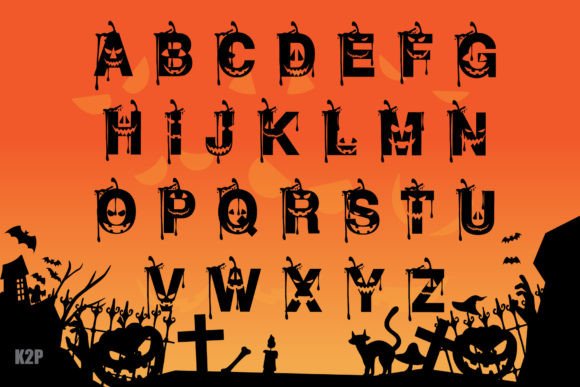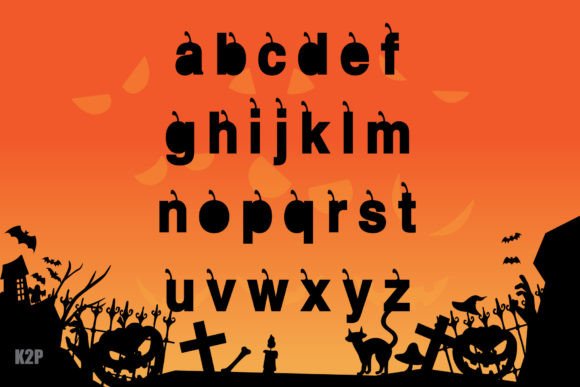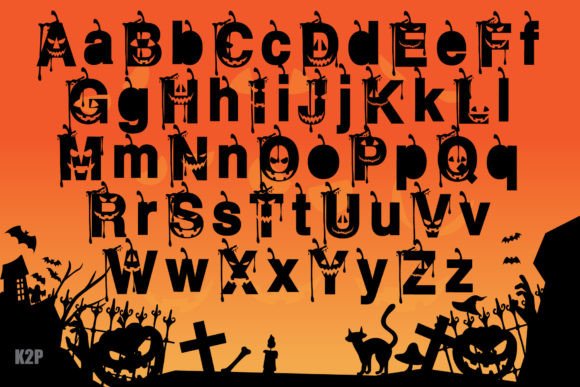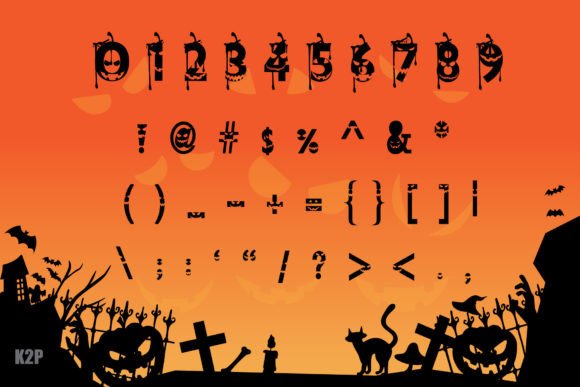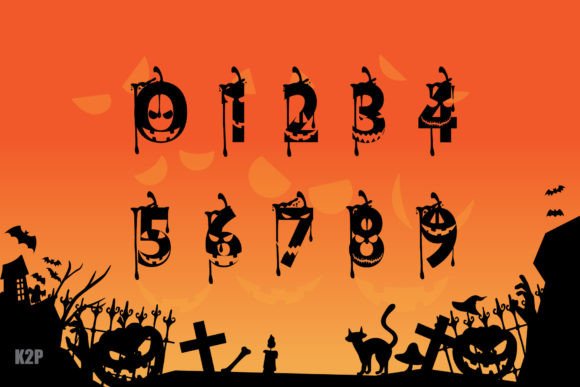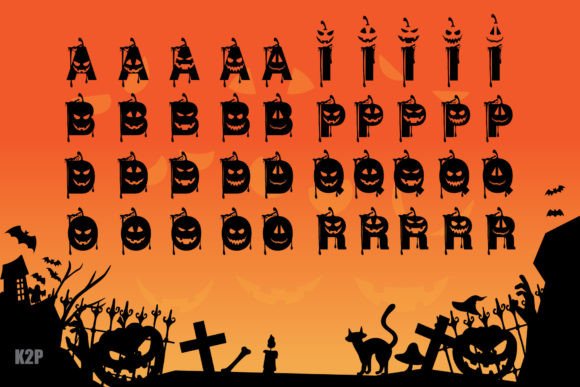
The Spooky Charm of Jack ‘o Lantern Font
As the leaves start to change and the air grows crisp, I find myself itching to get creative. There’s something about the Halloween season that sparks a sense of playfulness and imagination in me. Whether it’s crafting a spooky decoration or designing a festive invitation, I love how the holiday inspires me to think outside the box. And that’s exactly where the Jack ‘o Lantern Font comes in – a thick-lettered and spooky decorative font that’s perfect for bringing any Halloween-related project to life.
This font is more than just a fun addition to your designs; it’s a valuable tool for any designer looking to add a touch of whimsy and personality to their work. With its PUA encoding, accessing all of the glyphs and swashes is a breeze, giving you the freedom to get creative and push the boundaries of your imagination. Whether you’re a seasoned pro or a DIY enthusiast, the Jack ‘o Lantern Font is sure to be a hit with your next Halloween project.
Key Features of Jack ‘o Lantern Font
- Font Family: A unique, hand-drawn font designed to resemble a carved pumpkin.
- Unique Characteristics: Each letter and symbol is carefully designed to resemble a carved pumpkin, with intricate details and textures.
Jack ‘o Lantern Font Review
As a designer, I was excited to try out the Jack ‘o Lantern Font, a spooky and playful font perfect for Halloween designs. Here’s my honest review.
- The unique and creative design makes it perfect for Halloween-themed projects.
- The font is easy to read and understand, even in smaller sizes.
- The bold and vibrant characters add a fun and festive touch to any design.
- The font is highly customizable, allowing users to adjust the color, size, and style to suit their needs.
- The font may not be suitable for corporate or professional designs due to its playful and spooky nature.
- The font lacks a clear and consistent set of ligatures, which may lead to readability issues in certain contexts.
Overall, the Jack ‘o Lantern Font is a fun and creative addition to any designer’s toolkit. While it may have some limitations, it’s perfect for Halloween-themed projects or any design that requires a playful and spooky touch. With a little creativity and customization, this font can add a lot of personality and charm to your designs.
Tips for Getting the Most Out of Jack ‘o Lantern Font
For best results, use the Jack ‘o Lantern font for Halloween-themed projects, such as invitations, decorations, and social media graphics. You can also use it for spooky or whimsical designs. Experiment with different font sizes, colors, and combinations to add depth and interest to your designs.
The Jack ‘o Lantern font is perfect for:
- Halloween-themed projects
- Spooky or whimsical designs